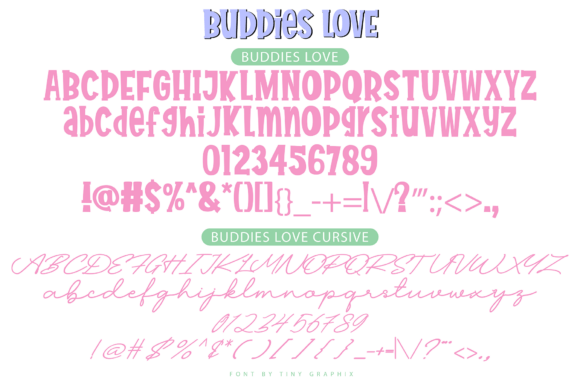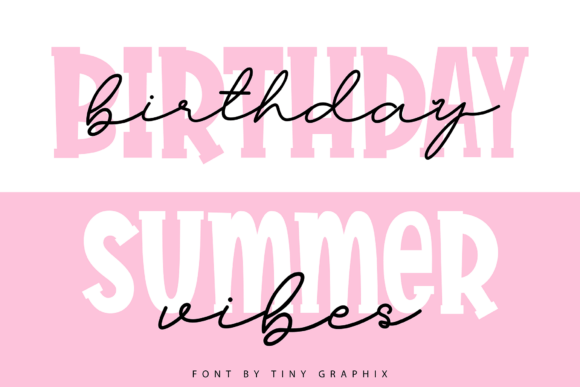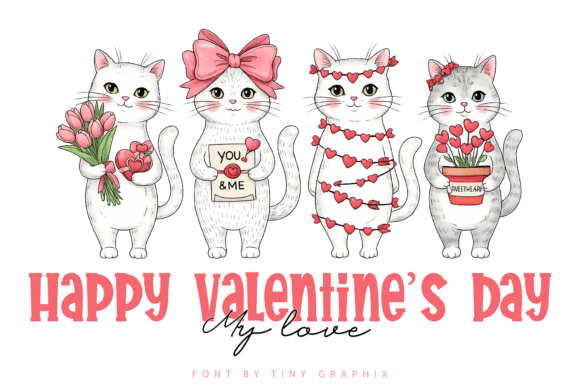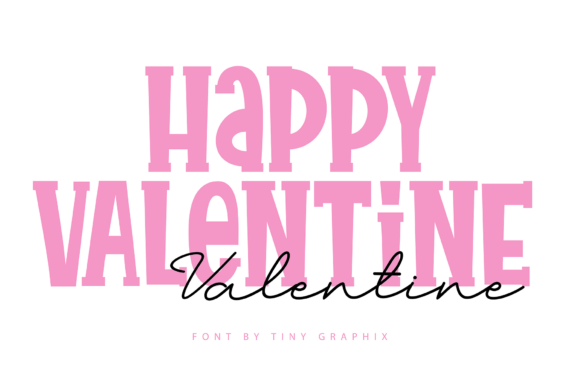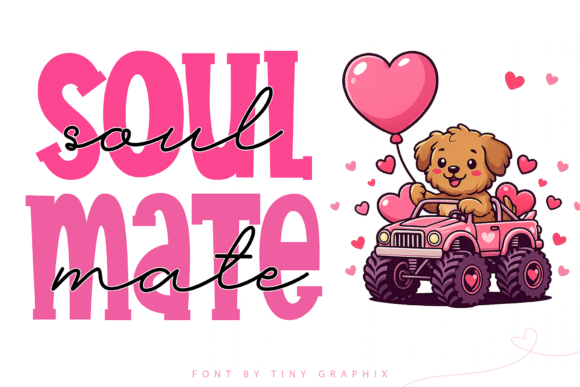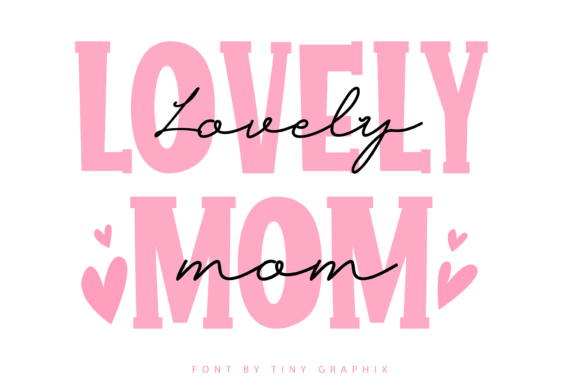
Designing from the Heart
Have you ever been stuck on a creative project, searching for the perfect font to convey the emotions you want to express? Maybe you’re crafting a heartfelt Valentine’s Day card or designing a wedding invitation that will leave a lasting impression. Whatever your project, we’ve got you covered with the Buddies Love Duo Font – a charming and whimsical font duo designed to bring a touch of romance and playfulness to your creative endeavors.
This lovely font set features two distinct styles: a bold, chunky display font perfect for headlines, and a graceful, flowing script for a hand-written feel. The Buddies Love Duo Font is a valuable addition to any designer’s toolkit, offering endless possibilities for romantic, wedding, anniversary, and holiday projects. With its Bonus Bundle of 60 Hand-Drawn Heart Doodles, you’ll be able to create complete, professional-grade designs in minutes.
- Unique Characteristics: Designed with a modern, playful, and friendly feel; perfect for pairing with Buddies Love Duo font
Buddies Love Duo Font Review
I recently had the chance to work with the Buddies Love Duo Font, and I wanted to share my honest thoughts on it.
- The font is playful and perfect for a wide range of applications, from branding to social media posts.
- The duo-style design, featuring two connected lines, adds a unique touch to any text-based element.
- The font is highly customizable, allowing for easy adjustments to size, color, and spacing.
- The font is available in both uppercase and lowercase letters, making it versatile for various design projects.
- The font may not be suitable for formal or professional applications, as it can come across as too playful or casual.
- The connected lines of the duo design may not be ideal for text that requires precise spacing or alignment.
- The font may not be as readable in smaller sizes or at a distance, making it best suited for larger text elements.
Overall, I think the Buddies Love Duo Font is a great choice for designers looking to add some personality to their work. While it may have some limitations, its unique design and high level of customization make it a great addition to any design toolkit.
Use Buddies Love Duo Font for:
1. Social media graphics and posts.
2. Event invitations and promotional materials.
3. Branding and logo design.
4. Custom graphics and illustrations.
For best results, use the font in combination with bold, bright colors and playful graphics to create a fun and eye-catching design.
Alternatives to Buddies Love Duo Font for Designers
Great Vibes Font is a fun, cursive font perfect for creating a playful and carefree atmosphere. It is ideal for use in social media graphics, advertisements, and other promotional materials where a friendly and approachable tone is desired.
Compared to Buddies Love Duo Font, Great Vibes Font has a more relaxed and casual feel, making it suitable for a wider range of applications. While Buddies Love Duo Font is more suited for children’s products or family-friendly brands, Great Vibes Font can be used across various industries.
Alex Brush Font is a elegant, handwritten font that exudes sophistication and refinement. It is perfect for use in high-end branding, luxury packaging, and other materials where a touch of class is desired.